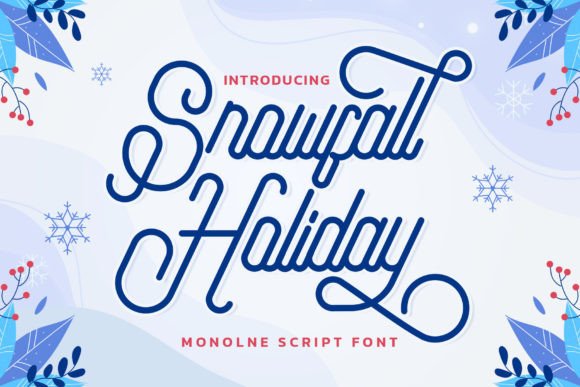
Welcome to the season of joy, warmth, and merriments with Snowfall Holiday Font! Embark on a delightful journey of creativity with this elegant and charming script font that captures the magic of the holiday season like no other. Step into a world where your designs exude warmth and cheer, leaving a lasting impression on your audience.
Crafted with meticulous care by the talented Hoperative Design, Snowfall Holiday is meticulously designed to embody the essence of winter wonderlands. Each stroke, curve, and swirl is a testament to the beauty that lies within the season of frosty greetings and cozy moments by the fireplace. Suitable for a wide range of creative projects, Snowfall Holiday stands ready to transform your designs into captivating works of art.
Picture this: Your designs adorned with the intricate swirls and graceful lines of Snowfall Holiday, evoking a sense of nostalgia and delight. Whether you're creating heartwarming holiday cards, eye-catching social media posts, or enchanting children's books, Snowfall Holiday possesses the power to elevate your creations to new heights.
Its versatility is truly awe-inspiring. From winter-themed invitations to adorable kids' t-shirts, from captivating cover books to playful stickers, Snowfall Holiday seamlessly adapts to your vision, adding a touch of charm and personality that will leave your audience enchanted.
And with PUA encoding, Snowfall Holiday grants you effortless access to a treasure trove of glyphs and swashes, inviting you to explore an endless realm of creative possibilities. Experiment with unique character combinations, incorporate whimsical ornaments, or add a touch of festive flair with ease. The options are boundless, just as your imagination.